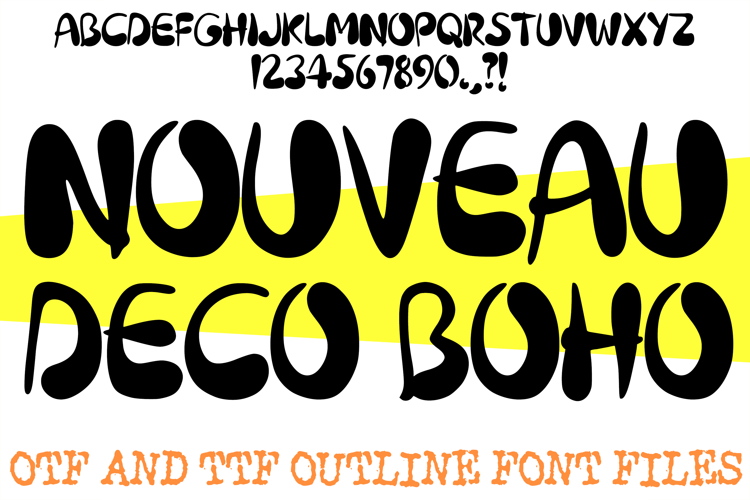
The Nouveau Deco Boho Font is an elegant and artistic display lettering set that beautifully blends the organic, flowing lines of Art Nouveau with the bold, high-contrast silhouettes of Art Deco. Each character is hand-drawn with a focus on fluid motion, featuring unique "thick and thin" stroke weights and decorative teardrop accents. It is the perfect choice for high-end boutique branding, modern boho wedding invitations, luxury packaging, and sophisticated social media graphics.
Artistic Contrast: The dramatic variation between thick weighted bodies and delicate, tapering ends creates a rhythmic and sophisticated visual appeal.
Organic Flow: Every letter and number features smooth, liquid-like curves and swirling flourishes that provide a sense of natural grace.